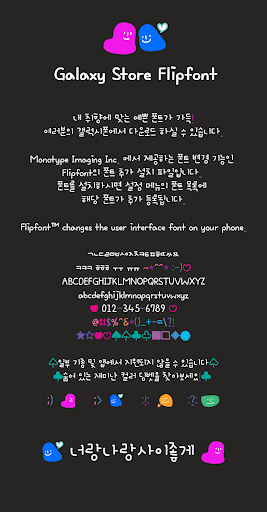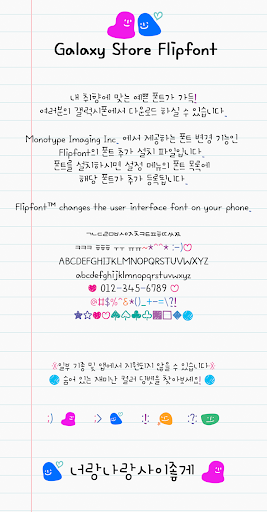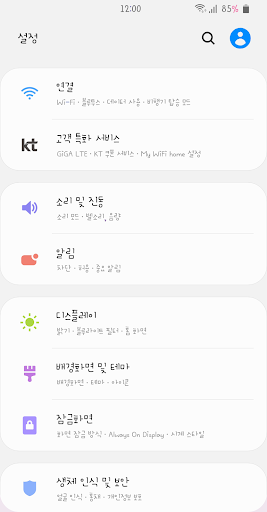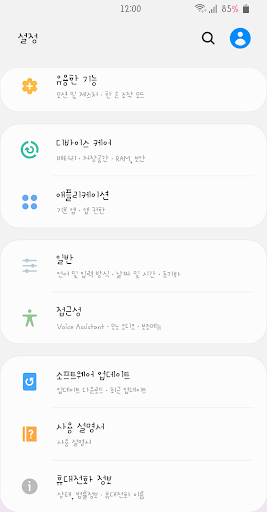
Ahgoodfriends™ Korean Flipfont
Ahgoodfriends
Unique grasps add cute fun to reading letters.
There is a special hidden bet hidden, so please look for it. :>